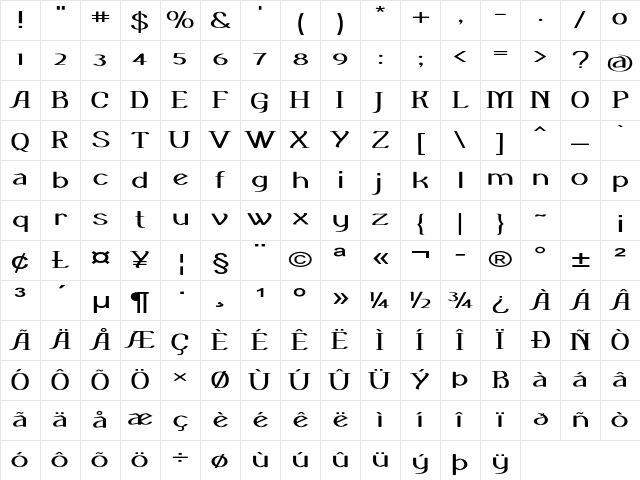
Jitter Extra-expanded Regular
Style: Extra-expanded Regular
Design Context for Jitter
Jitter is a composed and adaptable typeface that performs quietly and consistently across a wide range of design contexts.
Pro Tip: Use Jitter in both headline and body roles to test its range before committing to a single application.